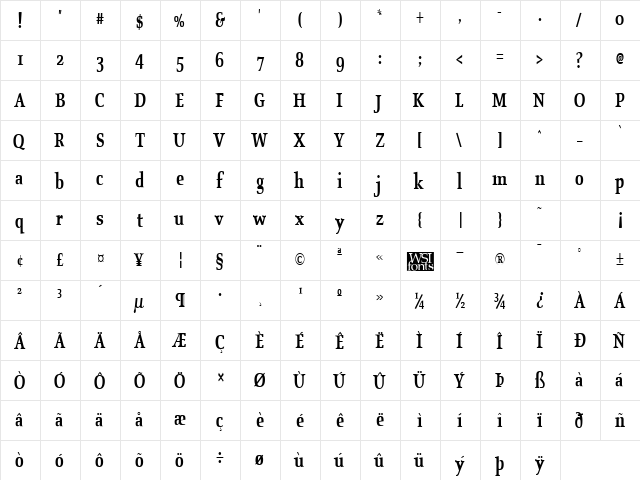
OldstyleCondensed Bold
Design Context for OldstyleCondensed Typeface
OldstyleCondensed brings classic typographic sensibility to the table — its serifs and measured letterforms reflect centuries of print heritage. The heavy weight commands attention and anchors typographic hierarchies. Its narrow stance lets it pack a punch even in space-constrained designs.
Pro Tip: Set OldstyleCondensed with slightly loose tracking in headlines to let each letterform's detail read clearly at display sizes.